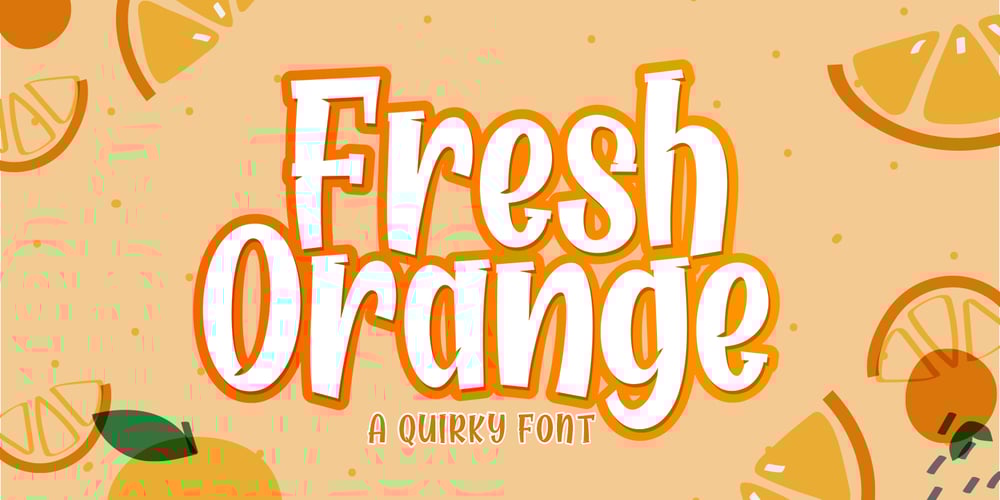
Fresh Orange Font Family was designed by Samsul Kamal and published by Lettersams. Fresh Orange contains 2 styles and family package options. Fresh Orange is a type of font that presents a unique style for every design project such as cartoons, comics, poster designs, and so on.Fresh Orange has two styles: regular and extrude, which will create a great layered look when combined.